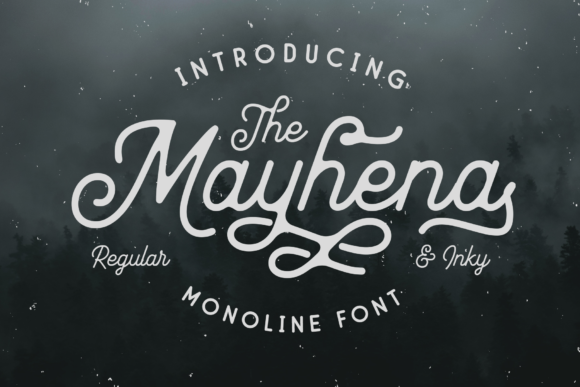
Introducing Mayhena Font - A Monoline Masterpiece with Vintage Charm
Delve into the world of typography with Mayhena Font, a captivating script font family that exudes vintage charm and timeless beauty. Designed by the skilled artisans at Arterfak Project, Mayhena is a connected monoline font that weaves a tale of elegance and nostalgia in every letterform.
Step into a realm where the past meets the present, where classic aesthetics blend seamlessly with modern sensibilities. Mayhena Font is a versatile chameleon, adapting effortlessly to a myriad of design projects, from logos and branding to wedding invitations and social media posts. Its delicate strokes and graceful curves infuse a touch of sophistication and charm into every visual creation.
Unleash your creativity and let your imagination soar with Mayhena's two distinctive styles: Regular and Inky. The Regular style exudes a clean and crisp appearance, perfect for designs that demand clarity and precision. The Inky style, on the other hand, embraces a distressed and textured look, adding a touch of grit and authenticity to your projects.
With Mayhena Font, you'll embark on a typographic journey like no other. Its carefully crafted characters dance harmoniously together, creating a visual symphony that captivates and enchants. Elevate your designs to new heights with Mayhena, a font that breathes life into your words and makes a lasting impression on your audience.
Dive into the world of Mayhena Font today and discover the endless possibilities that await you. Let your creativity flourish and your designs shine with the timeless elegance of this monoline masterpiece.